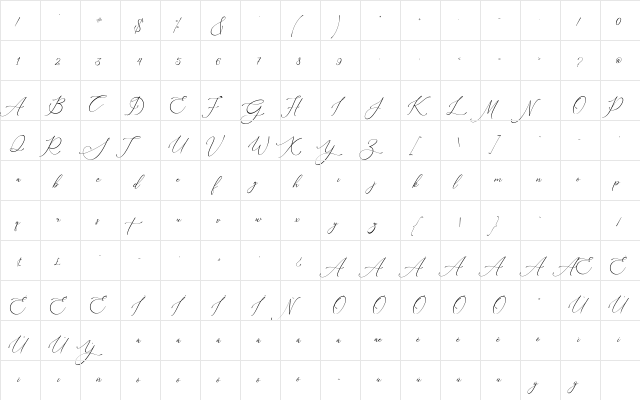
Nagisha Regular
| Designer | Gilar Studio |
Design Context for Nagisha Typeface
Nagisha is a composed and adaptable typeface that performs quietly and consistently across a wide range of design contexts.